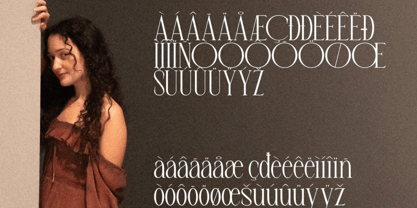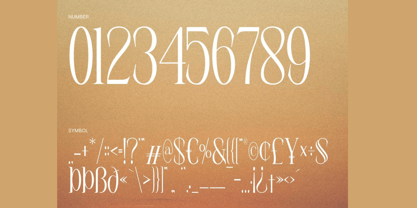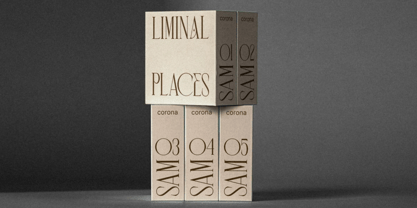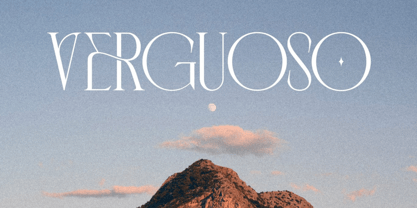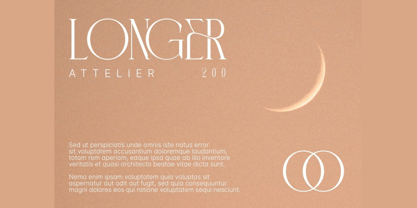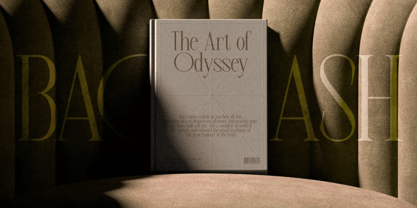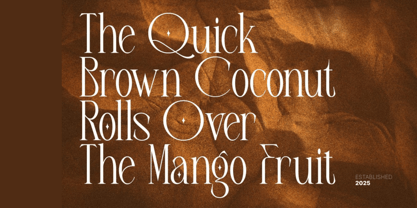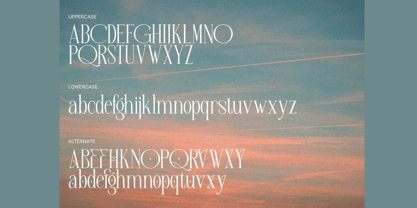
Verbose
by Hasnat Studio
The Verbose Font Family was designed by Hasnat Khan and published by Hasnat Studio. Verbose contains 1 styles. More about this family
Verbose is a refined and classic serif font that captures the essence of elegance and sophistication. With its delicate serifs, balanced proportions, and subtle flourishes, Verbose offers a timeless aesthetic perfect for upscale branding and high-end editorial design. Every letterform in Verbose is crafted with care, blending traditional elegance with a modern twist, making it the ideal typeface for projects that demand prestige, grace, and readability.
Whether you're designing for luxury brands, elite publications, formal invitations, or sophisticated web design, Verbose ensures a polished and captivating presence. The slightly condensed style and ornamental details give it a unique character without compromising clarity, making it a decorative serif that speaks to refinement and class.
✿ Key Features:
• Elegant Serif Structure: Beautifully crafted serifs with classic proportions and subtle modern details.
• Uppercase & Lowercase Letters: A full character set for versatile use across design projects.
• Alternates Included: Stylish alternate characters add variation and design depth.
• Numerals & Punctuation: Complete set for a refined, cohesive look.
• High-End Aesthetic: Built to elevate the look of premium branding and editorial design.
✿ Perfect For:
• Luxury Branding: High-end goods, fashion labels, real estate, hospitality, and cultural institutions.
• Editorial Design: Upscale magazines, art publications, gallery catalogs, and coffee table books.
• Formal Invitations: Elegant event invitations, gala programs, and corporate stationery.
• Logo Design: Perfect for classic, prestigious, and high-identity brands.
• Web Design: Websites requiring a graceful, professional serif aesthetic for luxury or heritage brands.
With its timeless appeal and luxurious detail, Verbose brings sophistication and grace to any project. Make a lasting impression with this elegant serif font designed to communicate prestige, beauty, and refinement.